The Font Brothers may be bros, but they definitely aren’t Font Bronies. The Minneapolis-based type foundry is suing Hasbro for unauthorized usage of one of its typefaces in the My Little Pony: Friendship is Magic materials.
The font in question is Generation B, which the Font Brothers call “a playful and offbeat” typeface inspired by the opening titles of The Parent Trap (the 1961 Hayley Mills version, not the inferior Lindsay Lohan remake). It’s used not only for Hasbro’s official My Little Pony website, but in toy packaging, merchandise, videos, and more.
“Defendant Hasbro has used or instructed others to use unauthorized copies of the Generation B Font in the creation of, but not limited to, all products, goods, merchandise, television and film properties, and advertising materials connected with the ‘My Little Pony’ product line..,” the Font Brothers’ claim reads. Concrete examples of the unauthorized use can be found here.
According to the Font Brothers, they were in touch with Hasbro about the unauthorized usage of Generation B before filing a lawsuit, but the My Little Pony makers refused to license the font for commercial use. They are now seeking $150,000 per infringement. Although Font Brothers say that “at present, the amount of such damages, gains, profits, and advantages cannot be fully ascertained,” the use of Generation B across Hasbro’s My Little Pony appears to be ubiquitous.
Lawsuits over unauthorized commercial use of typefaces are common. From 2009 to 2012, NBCUniversal was sued three separate times over unauthorized font usage. Other companies and entities that have gotten in trouble over the years for pirating fonts include Microsoft, Rick Santorum, TBS, Mixpanel, and even frickin’ Harry Potter. Most of these lawsuits end in settlements.
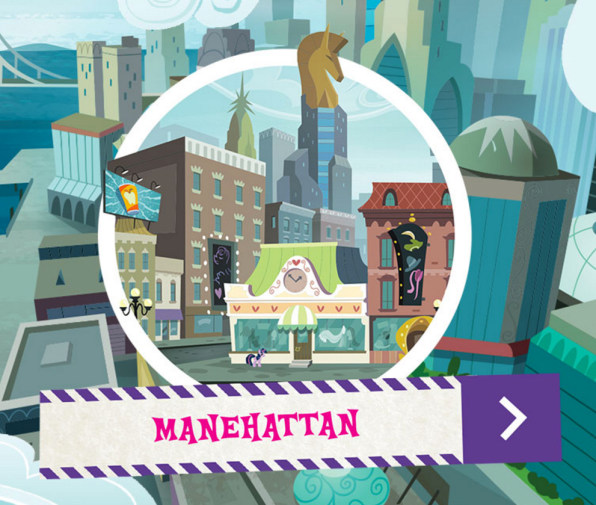
Generally speaking, there are no conspiracies involved in how respectable companies end up misusing fonts. Oftentimes, the issue is as simple as a lapse in due diligence when a designer uses a font for professional work that he or she only has license to use individually. Still, when you’re talking about a franchise as big as My Little Pony, the alleged infringement seems uncharacteristically brazen. Come on, Hasbro. What would Twilight Sparkle say about font theft?